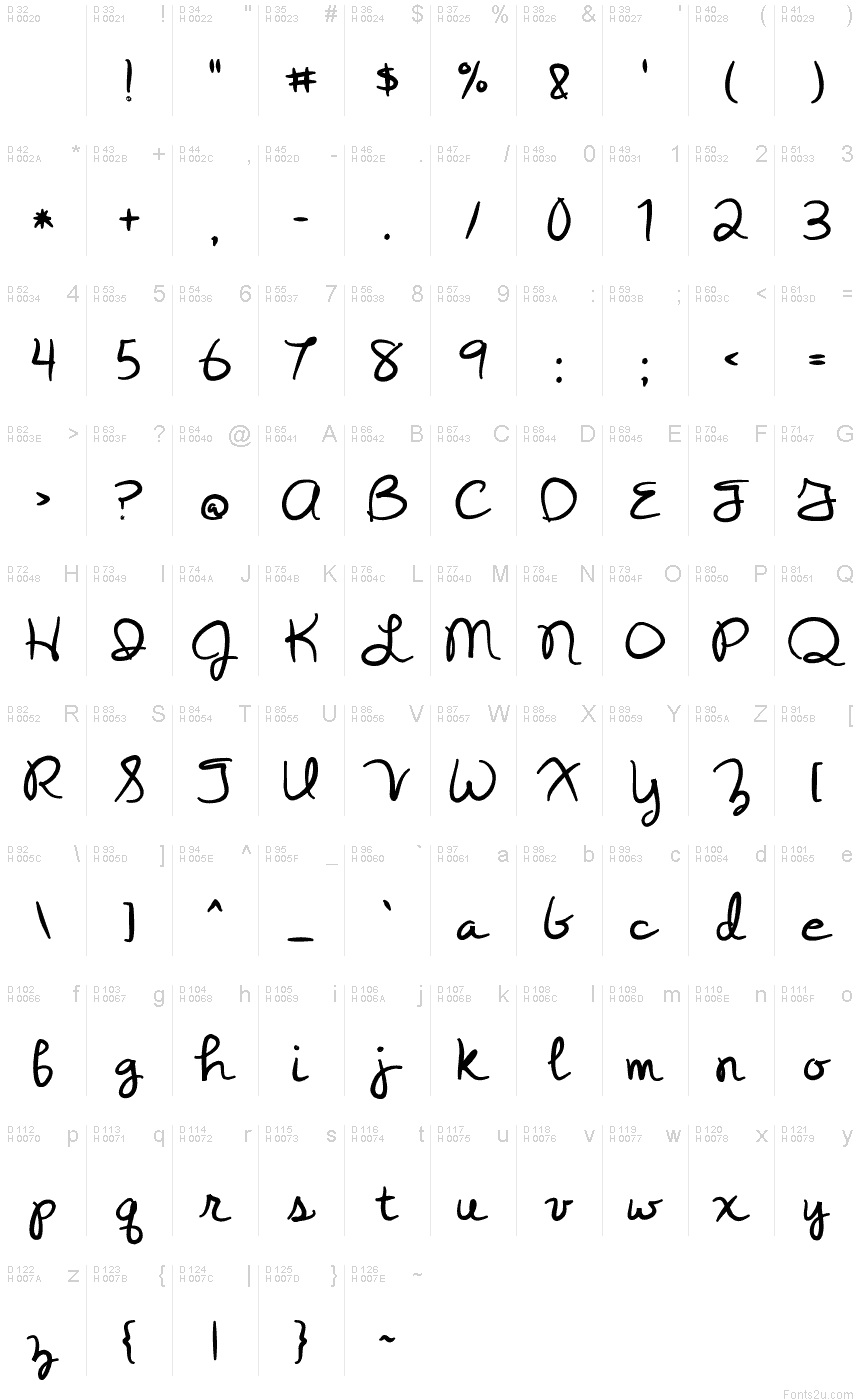
Yesterday Again is a free handwritten font with the loose, restless sweep of a quickly drawn personal note and sudden changes of direction. Its oversized loops pull the lettering far across the line.
Those broad circular turns and uneven joins can become part of loose, hand-drawn ink illustrations for album packaging, event posters, and independent fashion merchandise. For magazines or book covers, its irregular strokes can read like a personal margin note or expressive title rather than neutral editorial type.
Yesterday Again